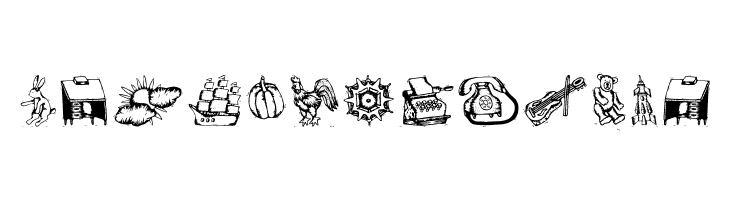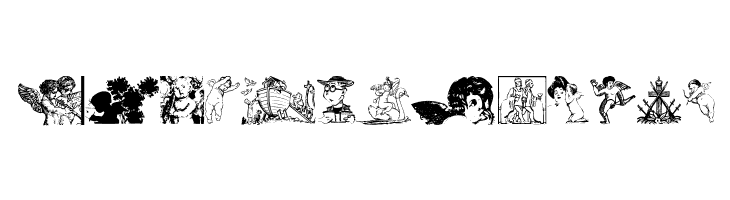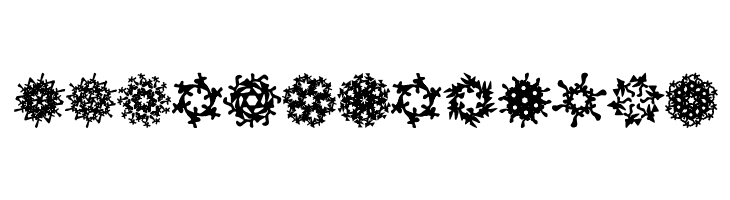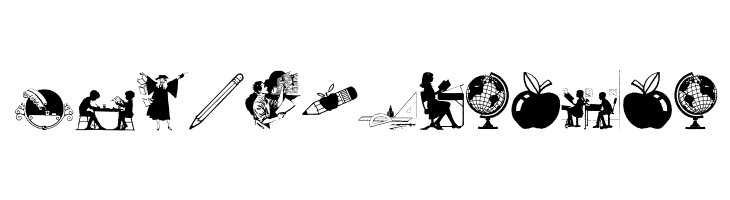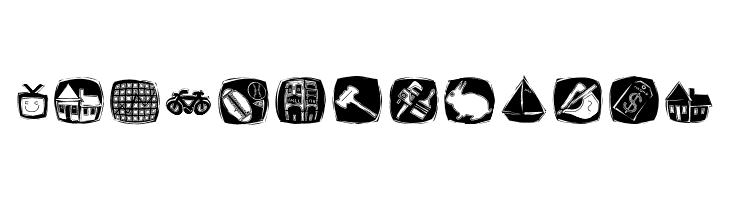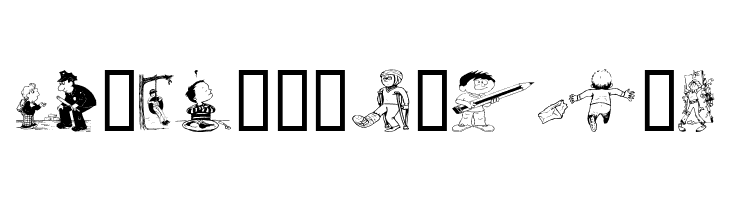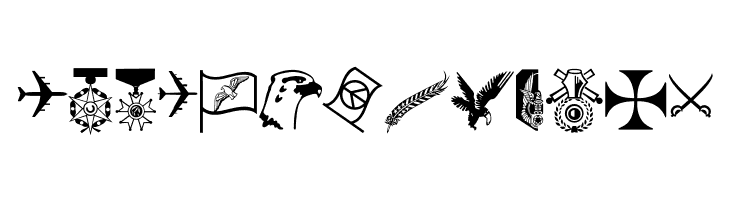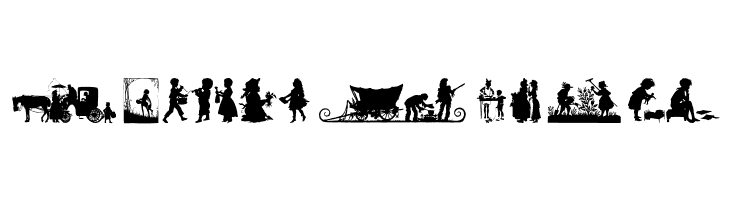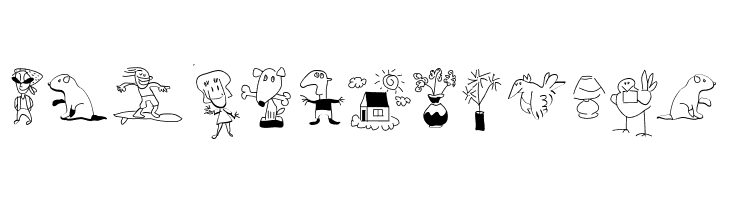
A decorative font featuring whimsical, hand-drawn illustrations with a woodcut style.
Ornate cherub and religious-themed dingbat illustrations.
Education-themed dingbat font with detailed school-related illustrations.
Hand-drawn pictogram font with playful, sketchy icons.
Cartoon children dingbat font with playful, hand-drawn illustrations.
A decorative insect-themed dingbat font with detailed bug illustrations.
Military and aviation icon dingbat font with bold, detailed symbols.
Silhouette illustration font with vintage, nostalgic scenes.
Hand-drawn cartoon dingbat font with playful, childlike illustrations.